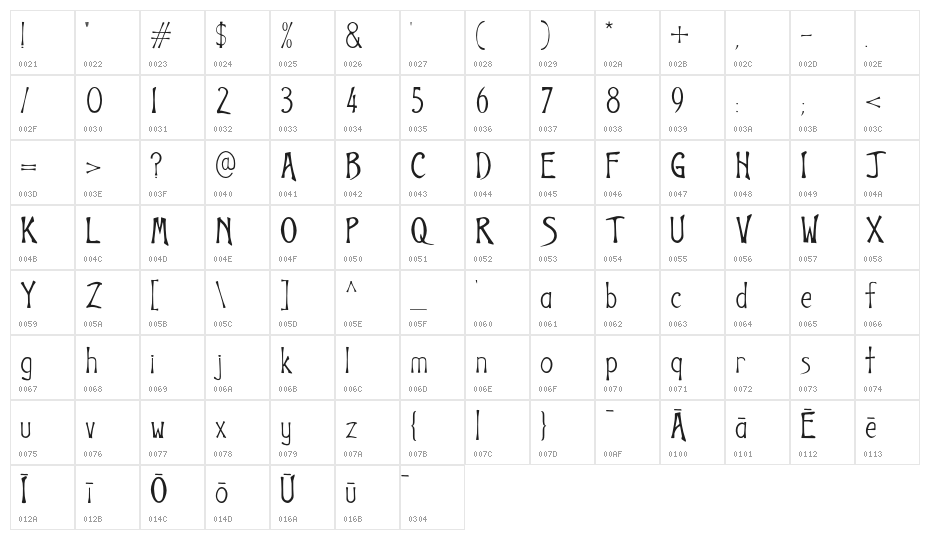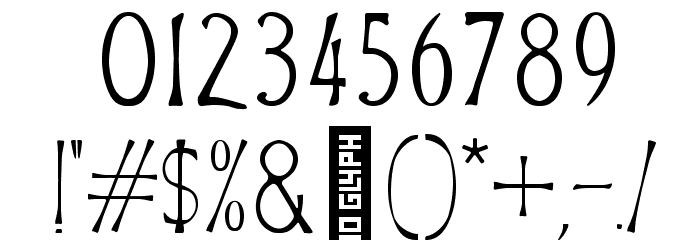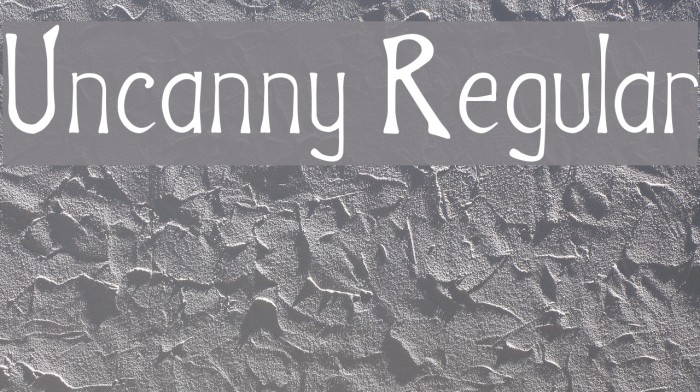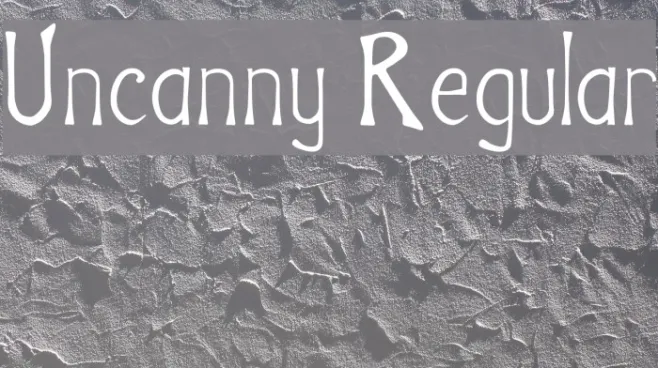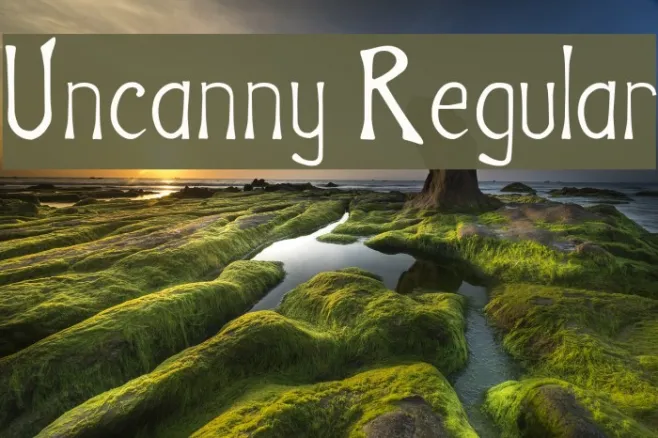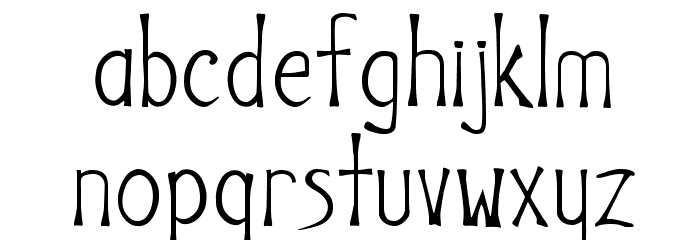
Uncanny Regular Font
Uncanny Regular Description
This font features a unique and quirky design with irregular, slightly distorted letterforms that give it a playful and whimsical appearance. The characters have a hand-drawn quality, with varying stroke widths that add to its charm. The uppercase letters are bold and prominent, while the lowercase letters maintain a consistent style with a slightly narrower form. Numbers and special characters follow the same playful aesthetic, making this font suitable for creative and informal projects. Its distinctive style captures attention and adds personality to any design.
| Overall Style | Whimsical |
| Proposed Projects | Ideal for children's books, creative posters, playful branding, and informal invitations. |